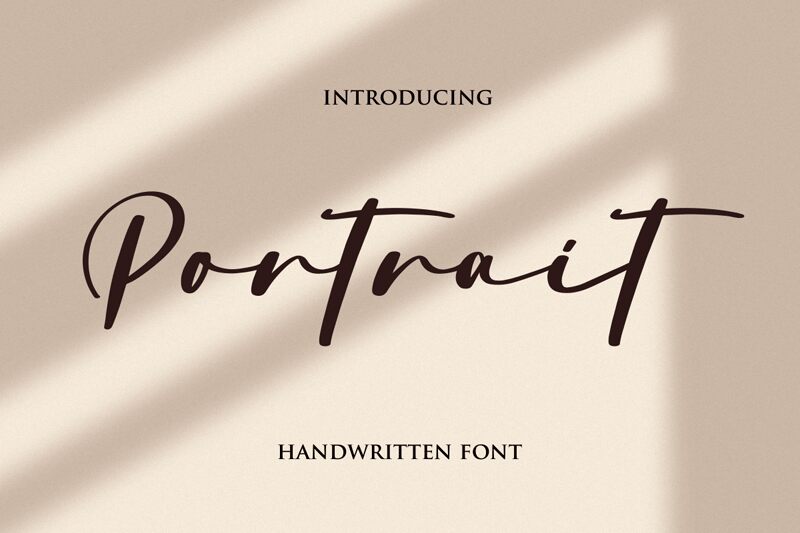
Portrait is a stunning handwritten signature font created by Fikryal Studio. With its elegant curves and natural flow, this font is perfect for adding a personal touch to any project. Its unique style makes it suitable for a variety of projects, from wedding invitations and greeting cards to logos and branding materials. The semi-bold font weight adds emphasis without being overpowering, while the medium width ensures readability on both large and small screens. Whether you're designing for print or digital media, Portrait will help you create beautiful, memorable designs that stand out from the crowd.